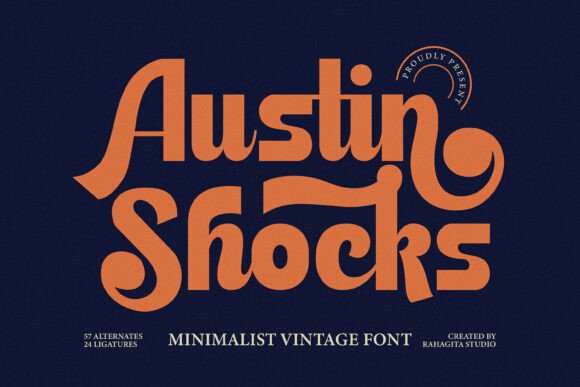
Introducing Austin Shocks: The Ultimate Vintage-Inspired Typeface
Have you ever been in the middle of a design project, pouring your heart and soul into it, only to realize that something is missing? You’re not quite sure what it is, but you know it’s not quite right. For me, that something was a font that could capture the essence of the 70s and 80s while still feeling fresh and modern. That’s when I discovered Austin Shocks, a minimalist vintage-inspired typeface that’s been a game-changer for my design projects.
A Personal Design Moment: Finding the Perfect Font
I was working on a branding project for a client who wanted a retro vibe, but with a twist. They wanted something that would stand out from the crowd, something that would make their brand memorable. I spent hours scouring the internet for the perfect font, but nothing seemed quite right. That was until I stumbled upon Austin Shocks. Its unique blend of bold audacity and timeless elegance caught my eye, and I knew I had found the perfect fit.
What I Love About Austin Shocks ✨
• ✅ Unique and versatile: With 57 distinctive alternate characters and 24 graceful ligatures, Austin Shocks offers a wide range of creative possibilities.
• ✅ Retro-modern charm: The font’s retro aesthetic is perfectly balanced with a fresh and modern twist, making it perfect for a wide range of design projects.
• ✅ Elegant and bold: Austin Shocks masterfully combines bold audacity and timeless elegance, making it perfect for creating striking designs.
• ⚠️ Learning curve: With so many alternate characters and ligatures, it may take some time to get familiar with the font’s features.
• ⚠️ Not suitable for body text: Due to its bold and decorative nature, Austin Shocks is best used for headlines, titles, and short paragraphs.
Austin Shocks was inspired by the iconic designs of the 70s and 80s, with a dash of modern flair. Its creator, a talented type designer, wanted to craft a font that would evoke the quintessential charm of the past while still feeling fresh and contemporary. The result is a font that’s both nostalgic and forward-thinking, perfect for designers seeking to create unique and memorable designs.
Font Name Austin Shocks Font
Author Rahagita Studio
Q: What makes Austin Shocks unique?
A: Austin Shocks’ unique blend of bold audacity and timeless elegance, combined with its rich collection of typographic resources, makes it a standout font.
Q: Is Austin Shocks suitable for body text?
A: Due to its bold and decorative nature, Austin Shocks is best used for headlines, titles, and short paragraphs.